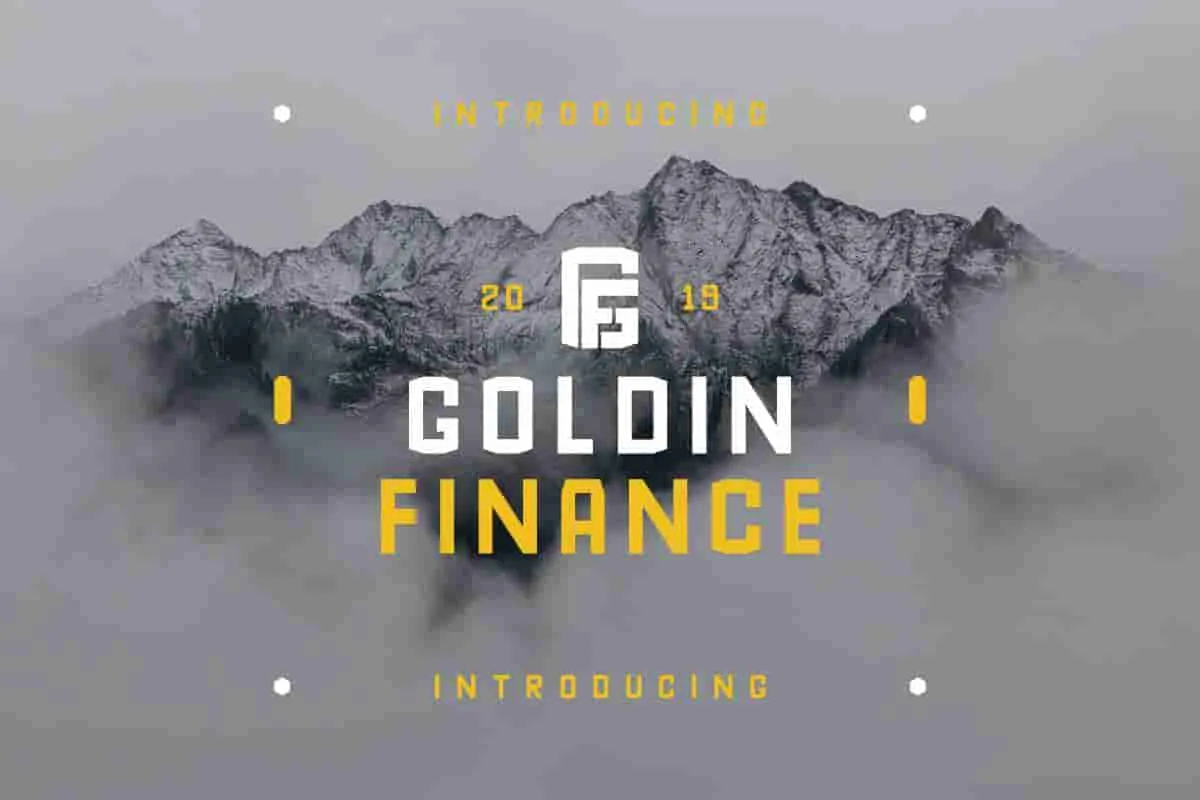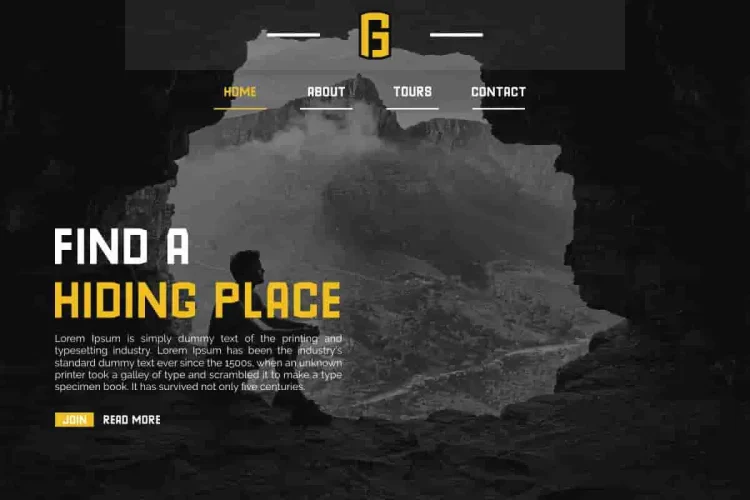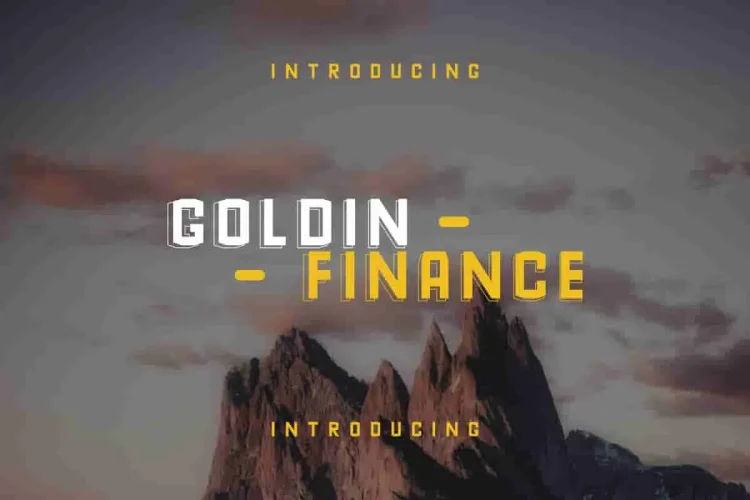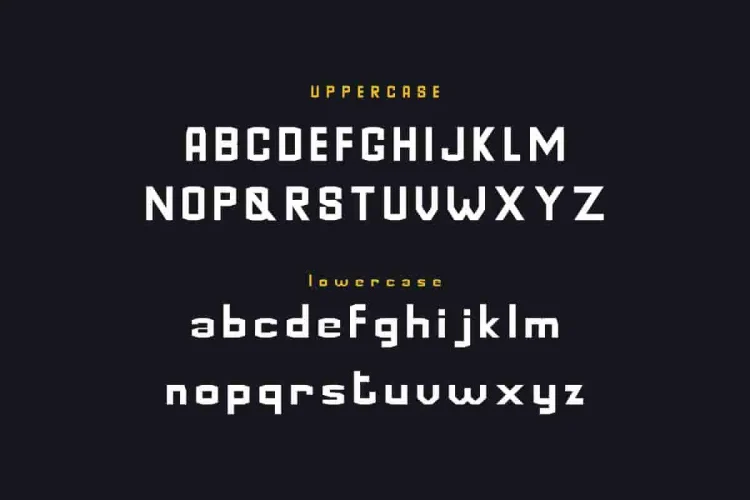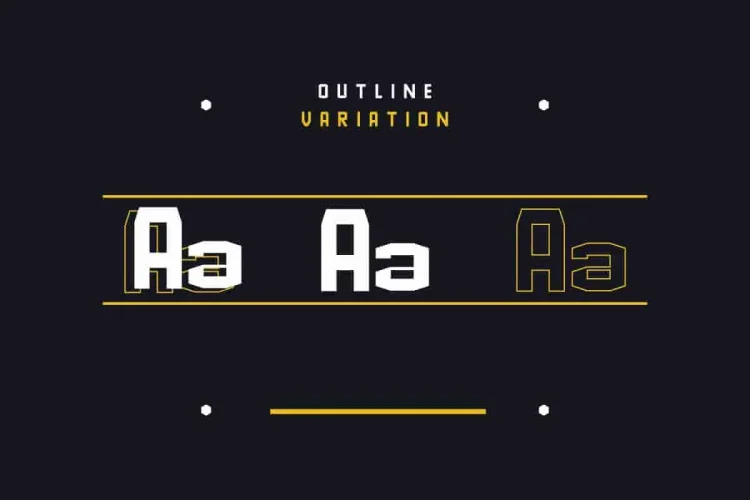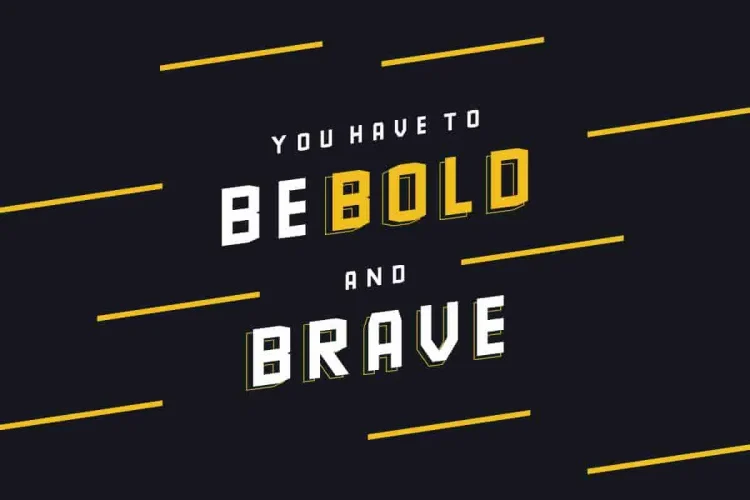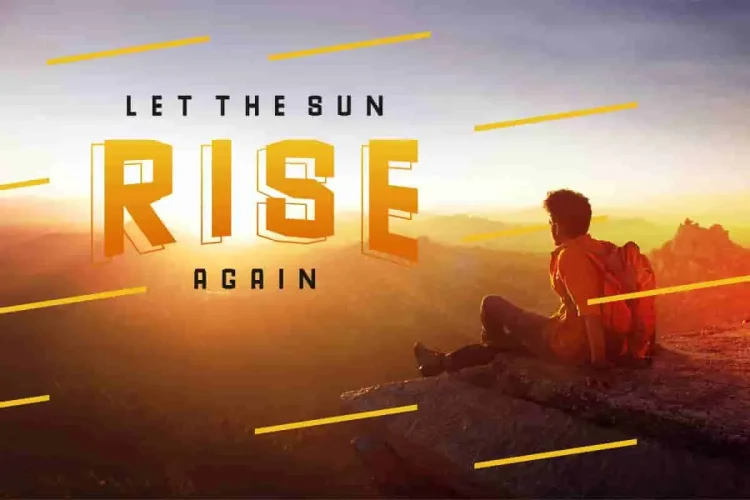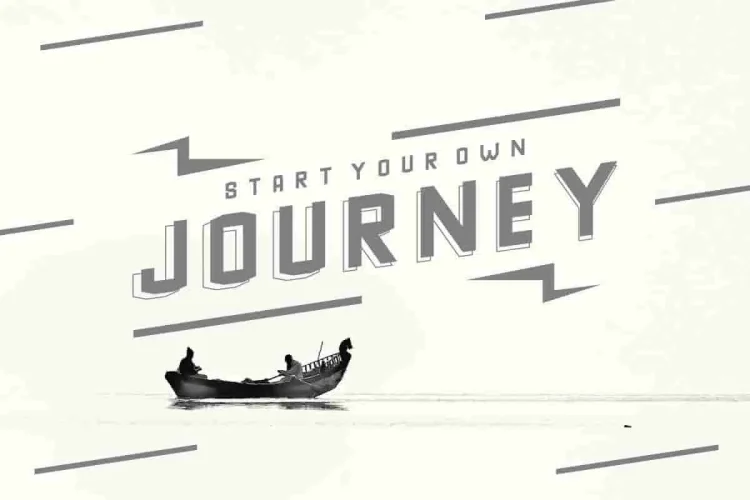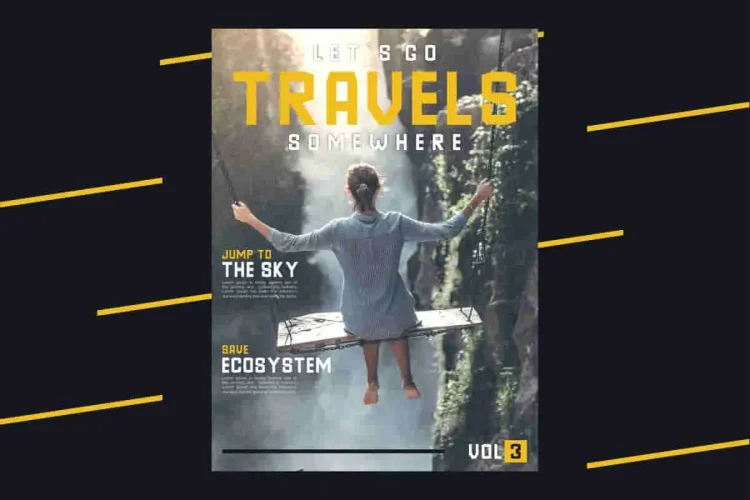
GoldinFinance Sans Serif Font
Where is your next destination? Start your journey with GoldinFinance Sans Serif Font! a geometric casual sans serif that looks bold, clean, and futuristic. GoldinFinance is unlike any font you have ever seen before. Its unique combination of angular cuts and sleek shapes creates a confident and modern aesthetic perfect for any project.
This font is ideal for both print and digital design needs. Use it for magazines, flyers, headlines, brochures, posters, social media covers, quotes, and product packaging. It is also perfect for branding, including logos, business cards, and merchandise designs. Its versatility will elevate your brand presence to look professional, strong, and stylish.
Moreover this font has 2 versions: Regular and Stroke. It also has third style combining the two become one!🤩
In addition, GoldinFinance includes uppercase and lowercase letters, numbers, punctuation, and multilingual support. Therefore, it gives you complete design flexibility for any project in any language. Each character has been carefully crafted to ensure readability while maintaining its futuristic geometric look.
• Modern geometric sans serif style for a confident look
• Two styles: Regular and Stroke, plus combination style
• Includes uppercase, lowercase, numbers, punctuation, and multilingual support